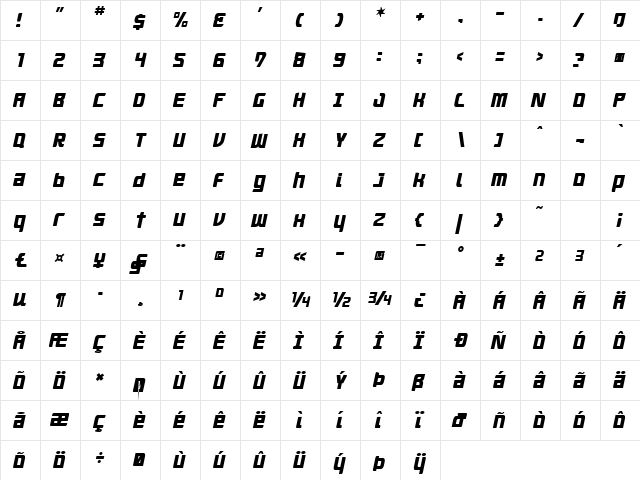
aquasky 2.0 ALP Italic Font Preview
aquasky 2.0 ALP Italic
aquasky 2.0 ALP Italic Font Details
Design Context for aquasky 2.0 ALP Typeface
aquasky 2.0 ALP takes a measured approach to typography — its balanced proportions and neutral character make it a reliable workhorse for both digital and print work. The dynamic lean of this cut emphasises speed and emphasis in any layout.
Pro Tip: Try aquasky 2.0 ALP for annotation and caption copy alongside an upright companion — the contrast in angle creates a dynamic but ordered typographic system.